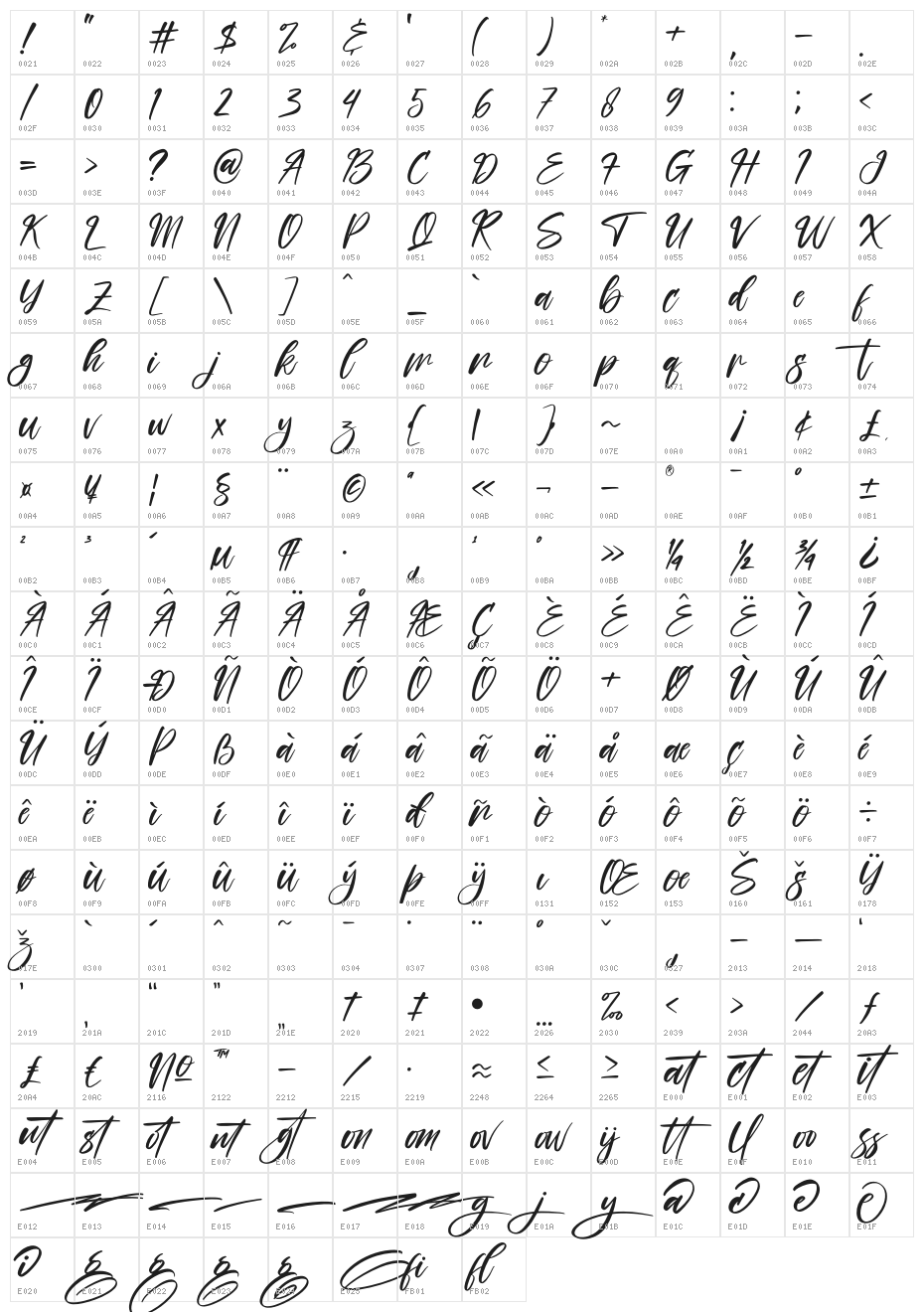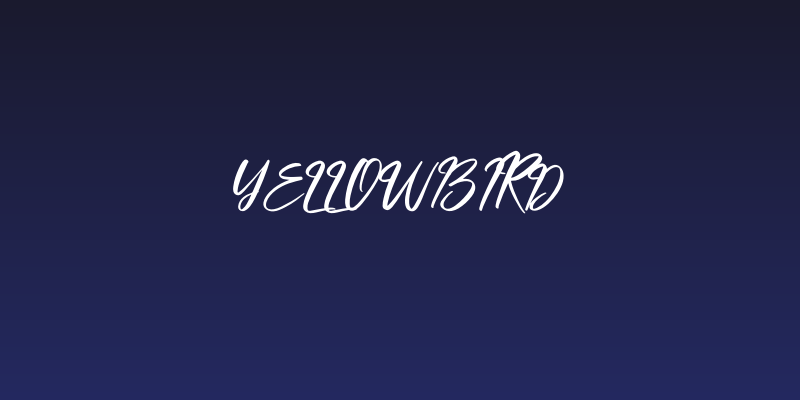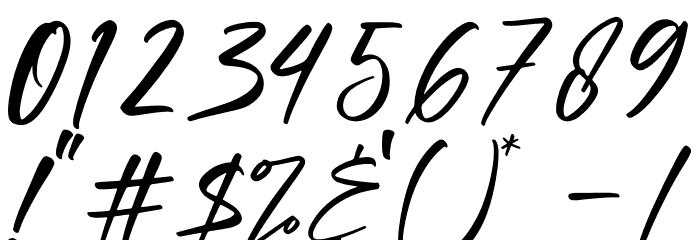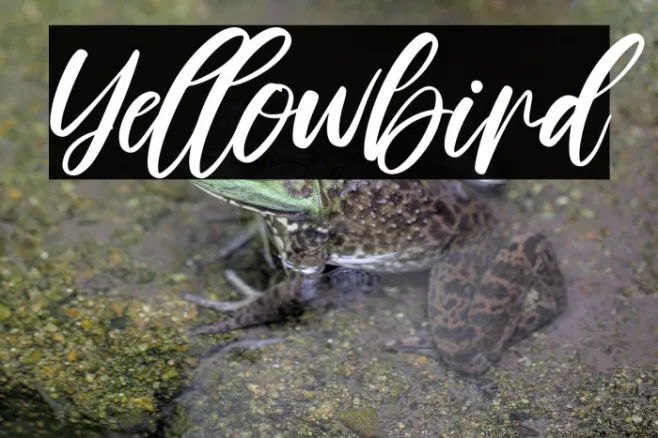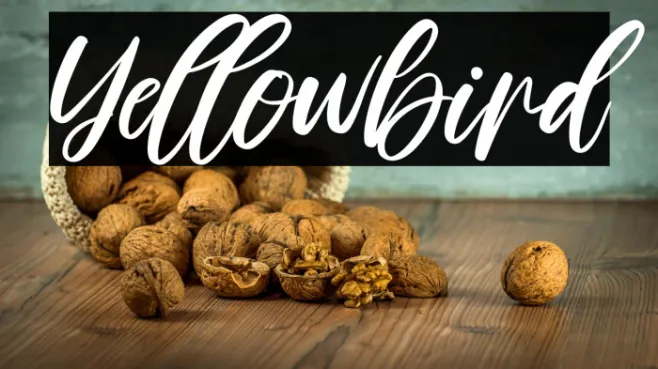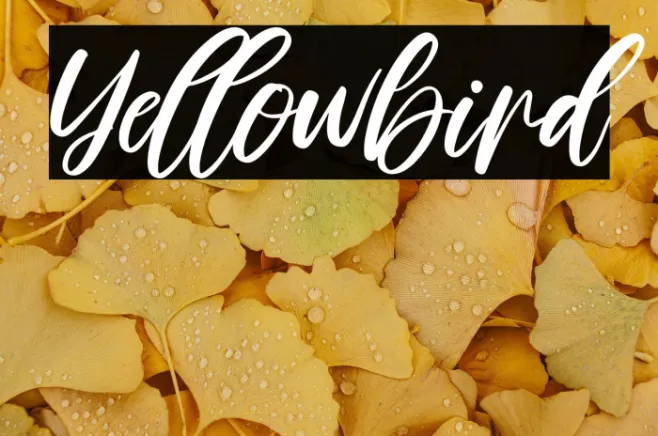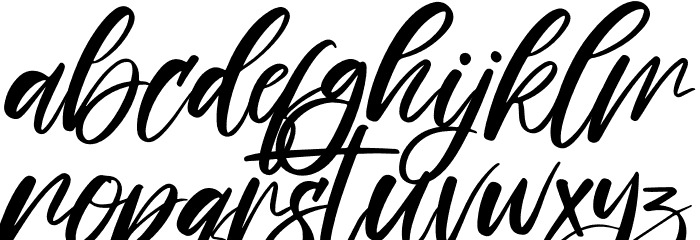
Yellowbird Font
Yellowbird Description
This font exudes a dynamic and energetic feel with its bold, flowing script style. The letters are interconnected, giving it a seamless and continuous appearance, reminiscent of handwriting with a brush pen. The uppercase characters maintain a consistent height, while the lowercase letters exhibit a playful bounce, adding to its lively character. Numbers and special characters are crafted with the same fluidity, ensuring uniformity across the set. The strokes are thick and confident, with a slight slant that enhances its casual yet sophisticated look. This font is perfect for projects that require a personal touch, such as invitations, branding, or any creative design that aims to capture attention with elegance and flair.